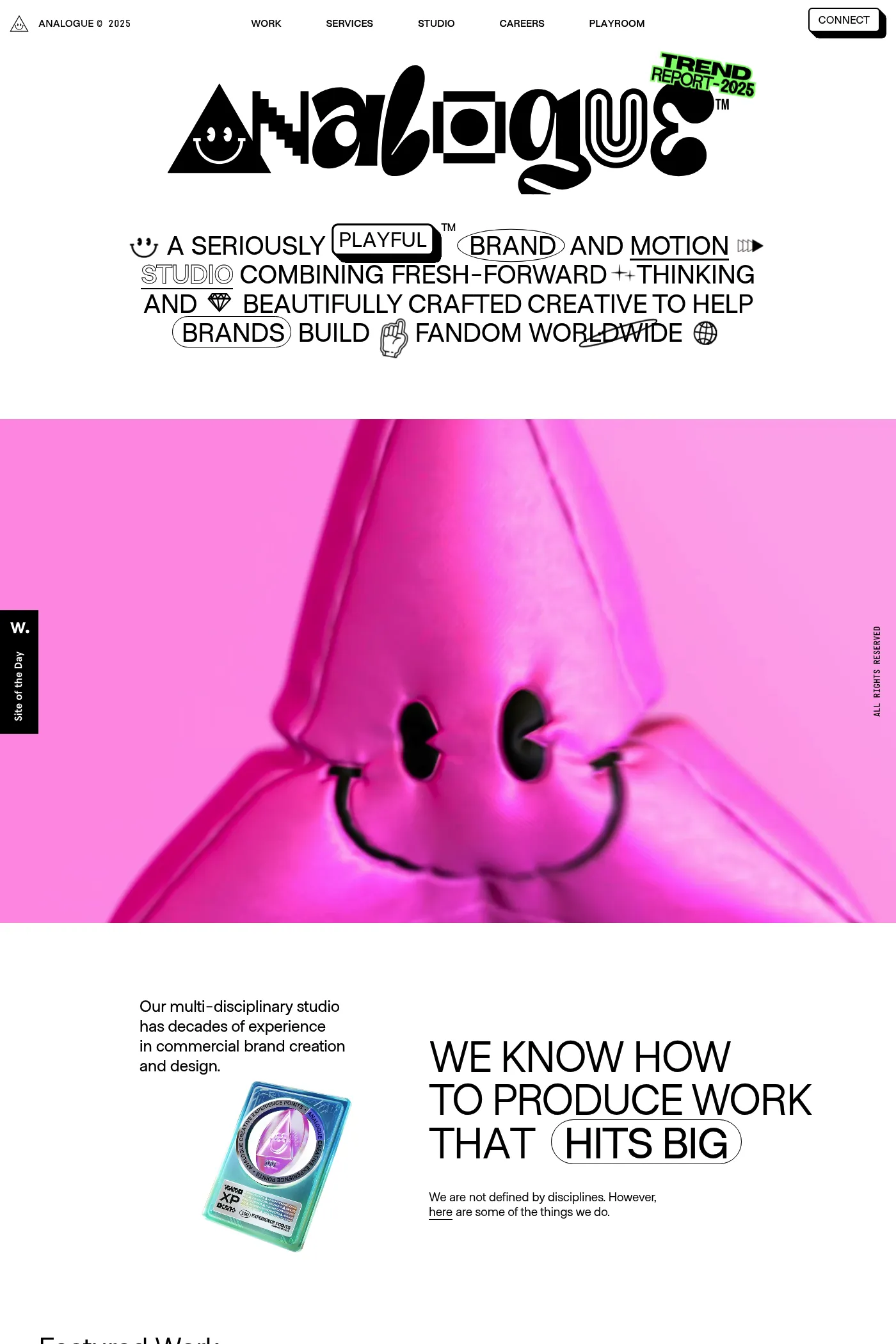
The result of a study into the Paris Metro system; Metro Sans is a Grotesk typeface with personality. It bridges the gap between the stern terminals of a Swi...
A1 features 1 website using Metro Sans. It leans towards Fun, Illustration, and Display font design styles, and it’s most often built with Wordpress.